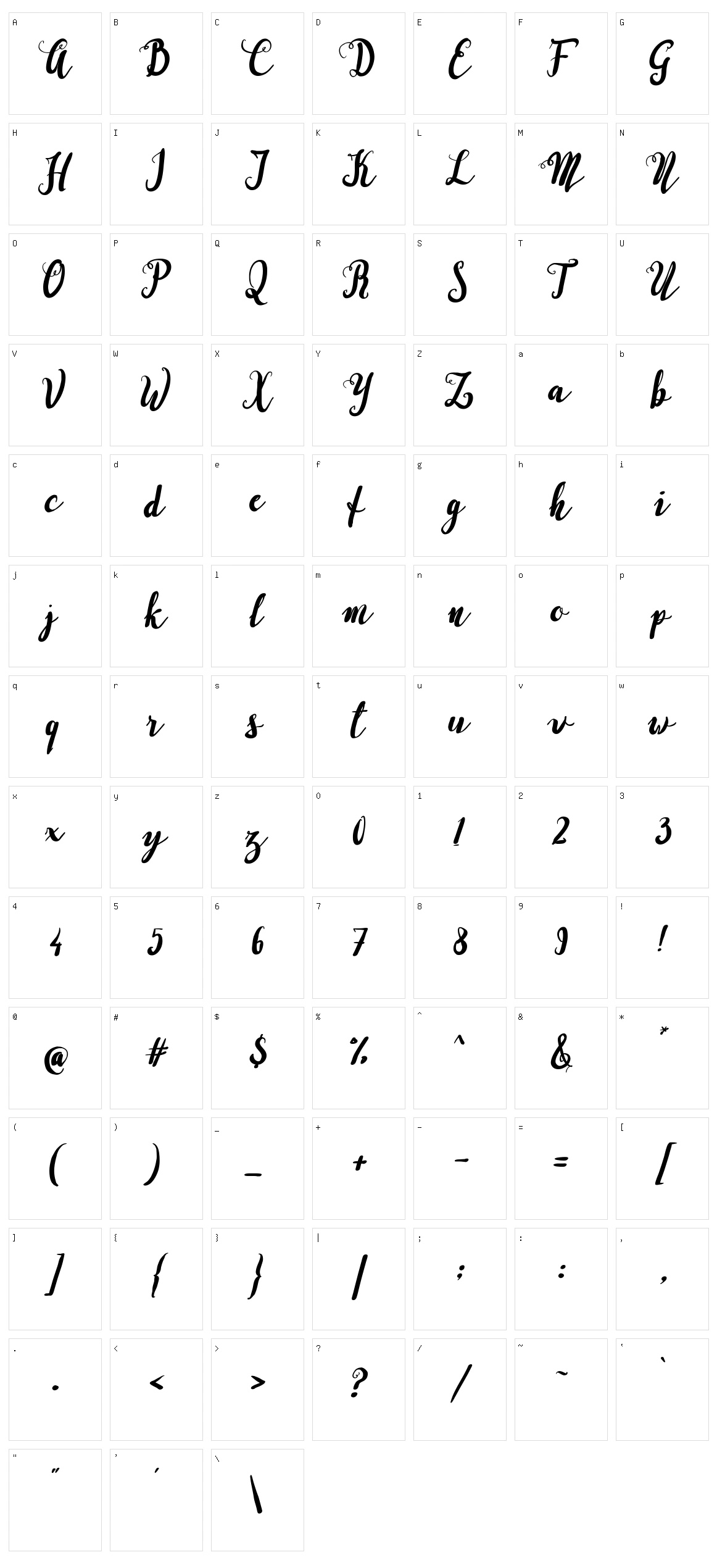
The free font Perfectos is carefully designed by Royaltype, showcasing a thoughtful balance of creativity and usability and falls under the Script font style. When you download the ZIP file, it contains only 63.99 KB of font files, making it lightweight and quick to download. Please review the license details below to understand permitted usage and distribution rights. If license information is not available, we recommend using this font for personal projects only or contacting the author directly for commercial usage permissions.